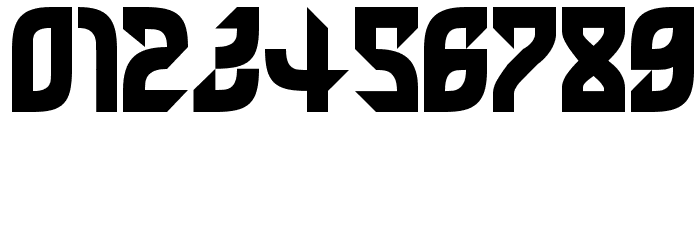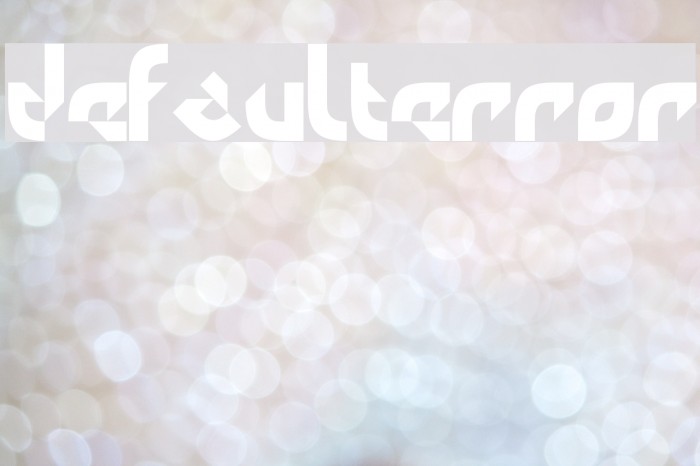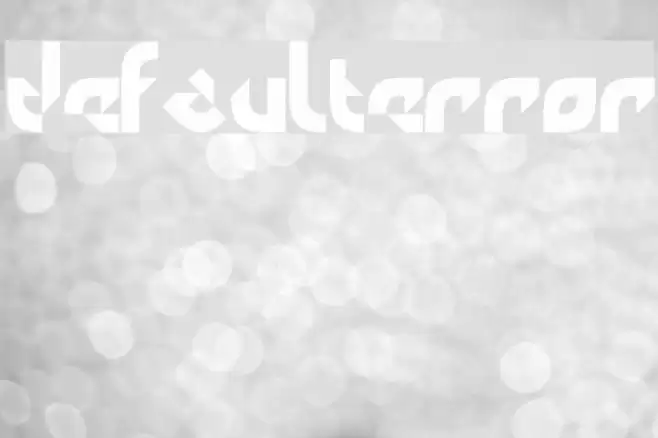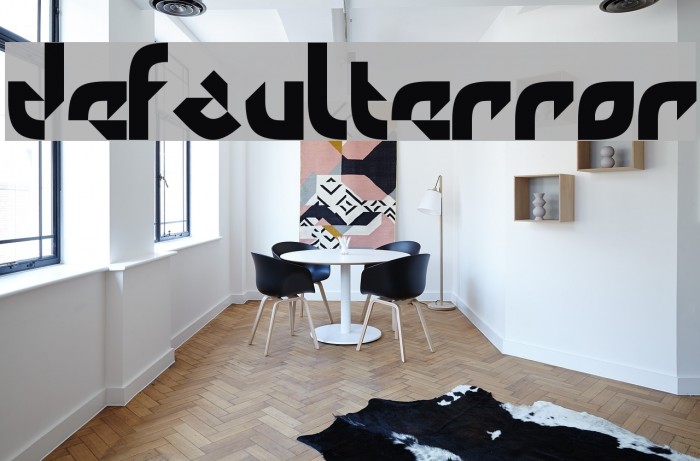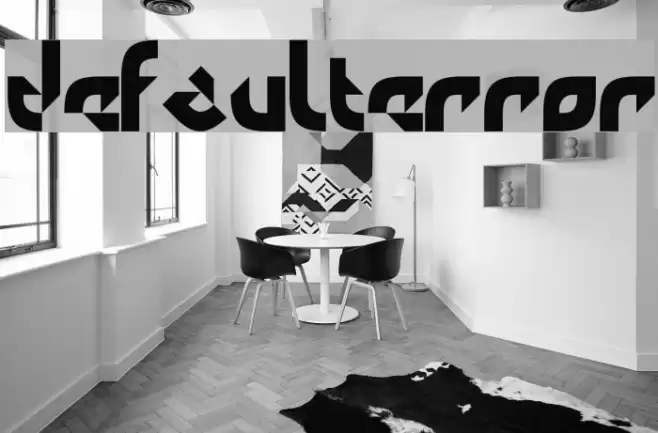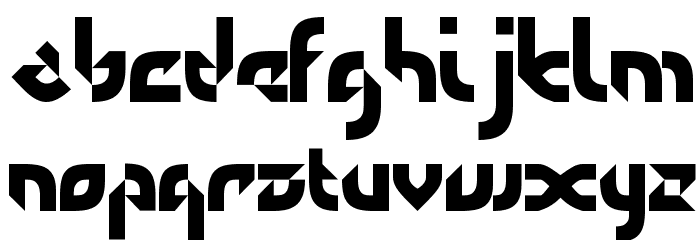
defaulterror Font
defaulterror Description
This font features a bold and geometric design with sharp angles and a futuristic aesthetic. The characters are constructed with a combination of straight lines and curves, creating a dynamic and edgy appearance. The uppercase and lowercase letters maintain a consistent style, while the numerals are distinct and easily recognizable. The special characters are designed to complement the overall look, making the font suitable for modern and innovative projects. Its unique style makes it stand out, ideal for capturing attention.
| Proposed Projects | Ideal for sci-fi themed designs, technology branding, video game titles, and modern posters. |